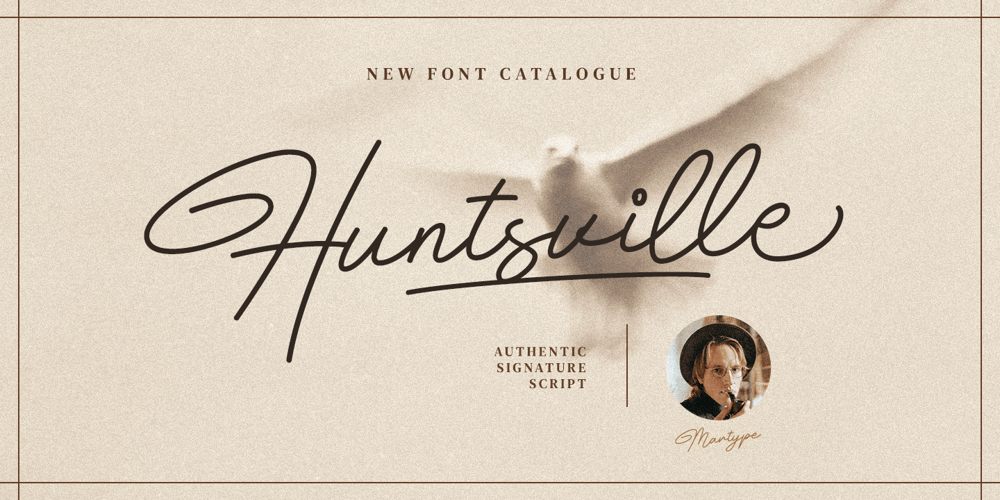
Huntsville Font Family was designed by Umar Al Farouq and published by Martype co. Huntsville contains 1 styles and family package options. Introducing Huntsville Monoline Signature, a brand new font with monoline style and signature feels, also made from hanwriting skill to make it more useable and stylish. This font also suitable for Branding Design, Logotype, Wedding Invitation, Headline, Posters, Business Card and etc. Yes this font comes with more than 200+ alternates and ligatures to complete your design and make more attractive than other font.Support for 66 languagesAfrikaans, Albanian, ,Basque, Bemba, Bena, Breton, Catalan, Chiga, Cornish, Danish, Dutch, English, Estonian, Faroese, Filipino, Finnish, French, Friulian, Galician, German, Gusii, Indonesian, Irish, Italian, Kabuverdianu, Kalenjin, Kinyarwanda, Luo, Luxembourgish, Luyia, Machame, Makhuwa, Meetto, Makonde, Malagasy, Manx, Morisyen, North, Ndebele, Norwegian, Bokmål, Norwegian, Nynorsk, Nyankole, Oromo, Portuguese, Quechua, Romansh, Rombo, Rundi, Rwa, Samburu, Sango, Sangu, Scottish, Gaelic, Sena, Shambala, Shona, Soga, Somali, Spanish, Swahili, Swedish, Swiss, ,German, Taita, Teso, Uzbek (Latin), Volapük, VunjoZulu, Thanks!Happy Desigining :)Umar